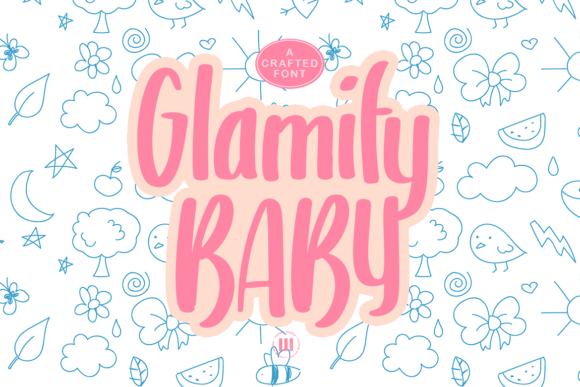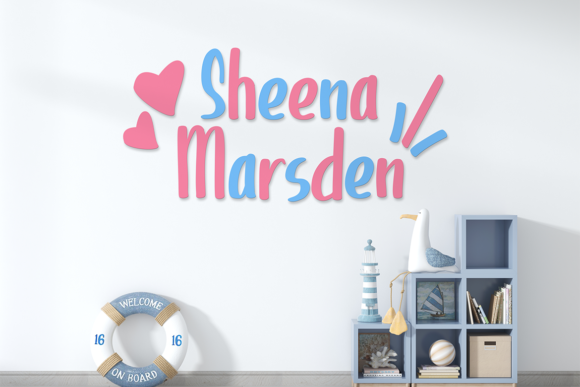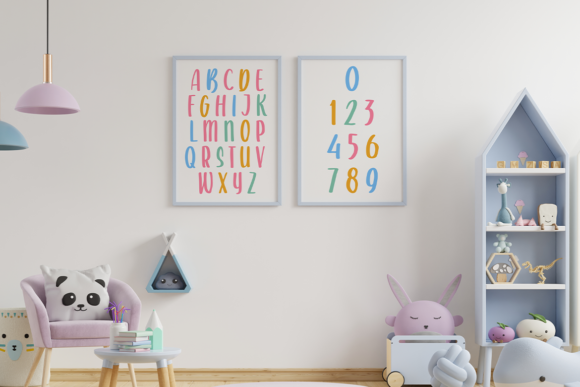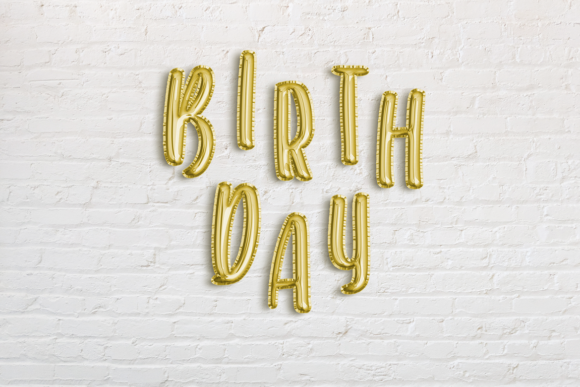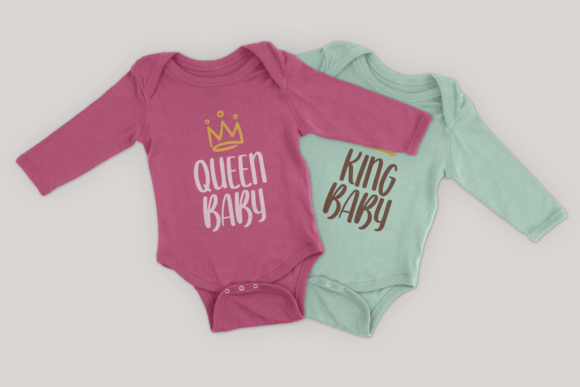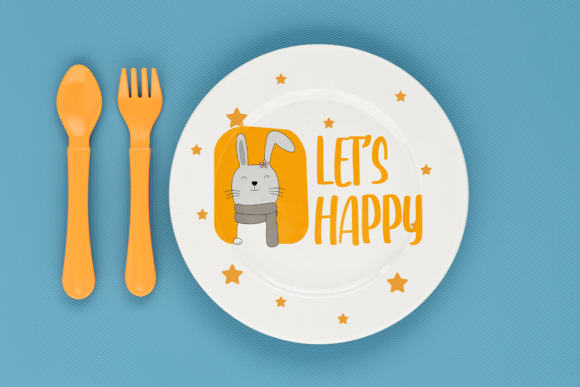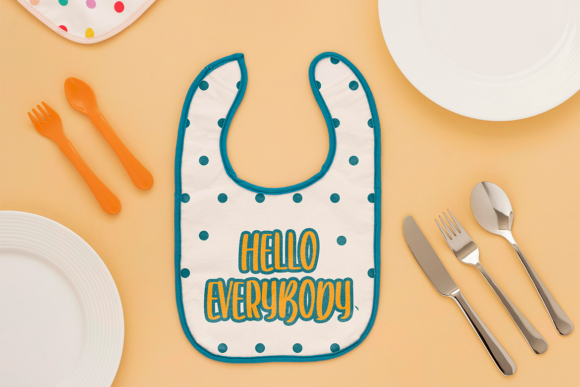
Have you ever stared at a blank canvas, waiting for inspiration to strike? We’ve all been there – the blank page staring back at us, taunting us to create something amazing. For designers, this moment is a familiar feeling, but it’s also an exciting one. It’s the chance to bring a new idea to life, to make something beautiful and unique.
One font that can help you capture that magic is the Glamify Baby Font. This display font is designed to add a touch of natural charm to your designs, making it perfect for logos, branding, posters, and more. Whether you’re creating a social media post, a party invitation, or a piece of stationery art, Glamify Baby Font is a valuable addition to your toolkit.
Glamify Baby Font Key Features
- Unique Characteristics: Glamify Baby Font features a unique blend of elegant and playful design elements, making it perfect for baby-related products, nursery decor, and children’s party invitations.
- Character Set: Glamify Baby Font includes a comprehensive character set, including uppercase and lowercase letters, numbers, punctuation marks, and special characters, ensuring that you have everything you need to create beautiful designs.
Glamify Baby Font Review
Overall, I’m impressed with the Glamify Baby Font, but as with any design element, there are both strengths and weaknesses.
- Soft, cursive lines that evoke a sense of whimsy and playfulness, perfect for baby-related designs.
- The font’s elegant, high-end feel makes it suitable for luxury or high-end branding.
- Excellent legibility, even at smaller font sizes, which is crucial for readability.
- Lack of expressiveness, making it less suitable for bold or dynamic designs.
- May not be the best choice for fast-paced or energetic content, as it can come across as too gentle.
- Requires careful pairing with other fonts to avoid looking too ‘matchy-matchy’.
In conclusion, the Glamify Baby Font is a beautiful addition to any design project, but its limitations should be considered carefully. It’s perfect for baby-related, luxury, or high-end branding, but may not be the best fit for more energetic or fast-paced content.
For best results, use Glamify Baby Font in combination with other decorative fonts and graphics. Experiment with different font sizes, colors, and styles to create a unique and eye-catching design.
Glamify Baby Font is perfect for creating baby-themed designs, such as invitations, nursery decor, and baby announcements. It’s also great for adding a touch of whimsy to wedding invitations, party decorations, and other special occasion designs.